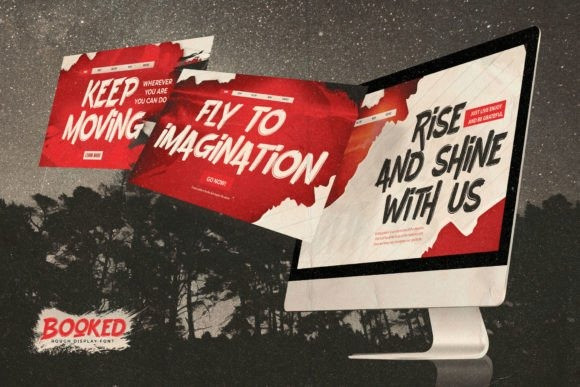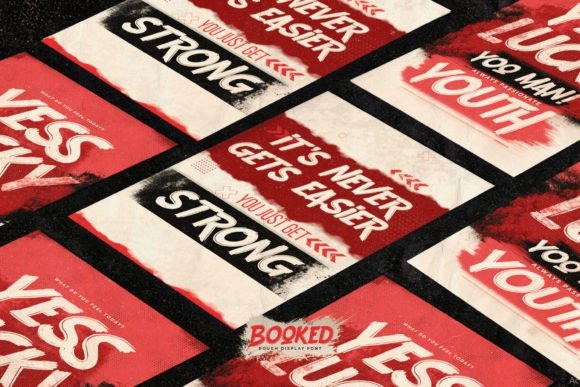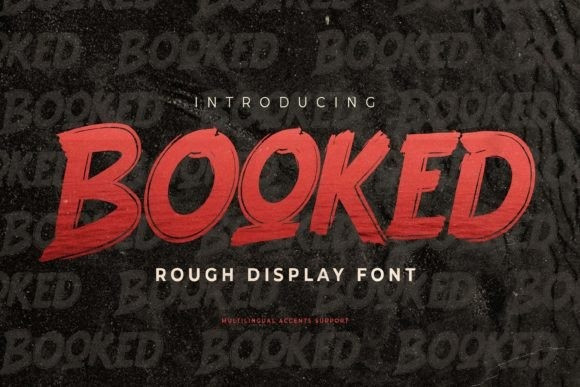
Booked Brush Font
Booked Brush Font, This Is Rough Display Font, a Textured Natural Style, also a classy and clear style and dramatic movement.
This font Booked Brush is great for your next creative projects such as logos, printed quotes, invitations, cards, product packaging, headers, Logotype, Letterhead, Poster, and watermarks on photography, and perfect for logos & branding, invitation, advertisements, wedding designs, labels, product packaging, special events or anything that need handwriting taste. It will bring a charming, authentic, and relaxed look to your text.